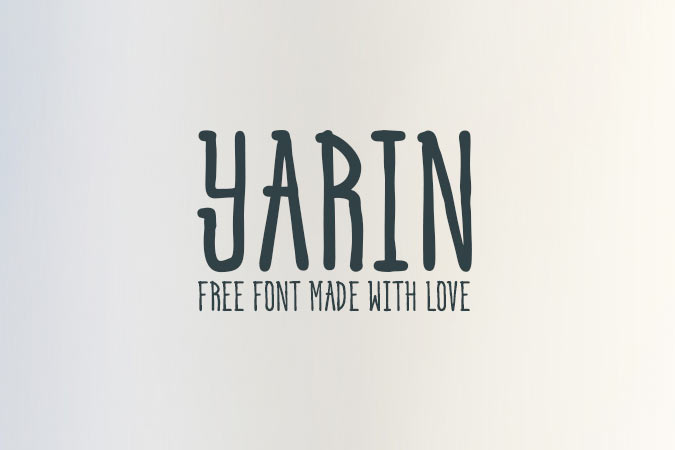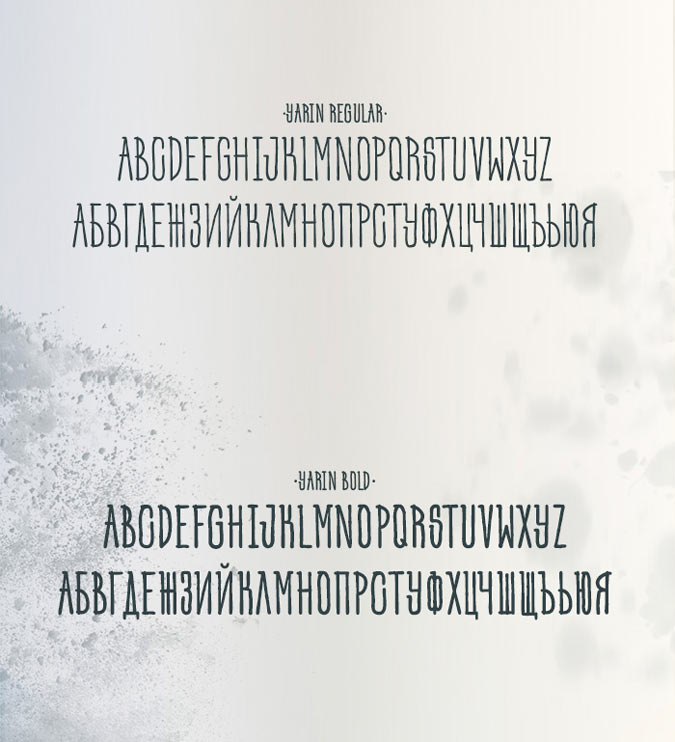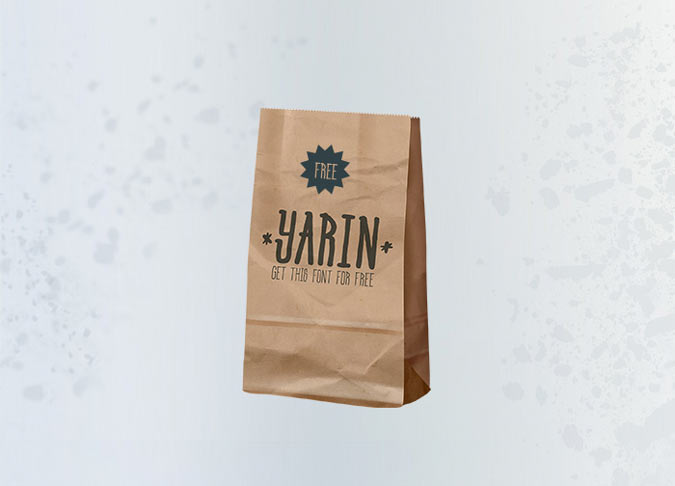
Yarin is a uppercase-only, tall x-height handwriting font that you can download for free. With its tall and thin design, you can get creative with it on headline, branding, poster designs as more. This font probably won’t work so great on smaller sizes.
Yarin comes with two weights: regular and bold, and it completes with extended Latin and Cyrillic characters.
- Designer: Mario Pandeliev
- Styles: 2
- Category: Handwriting